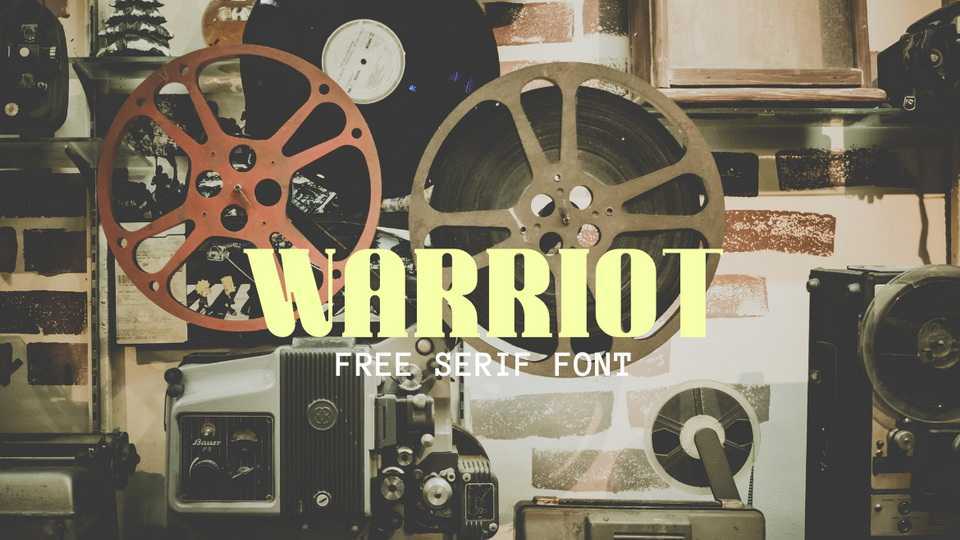
Download Warriot font, a vintage display typeface with high contrast strokes and smooth curves. Warriot font is ideal for magazines, short text, logos, branding design, packaging and advertising.